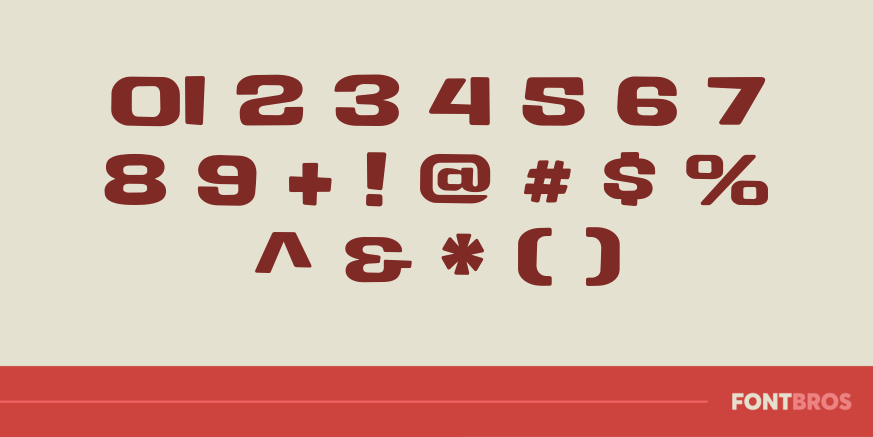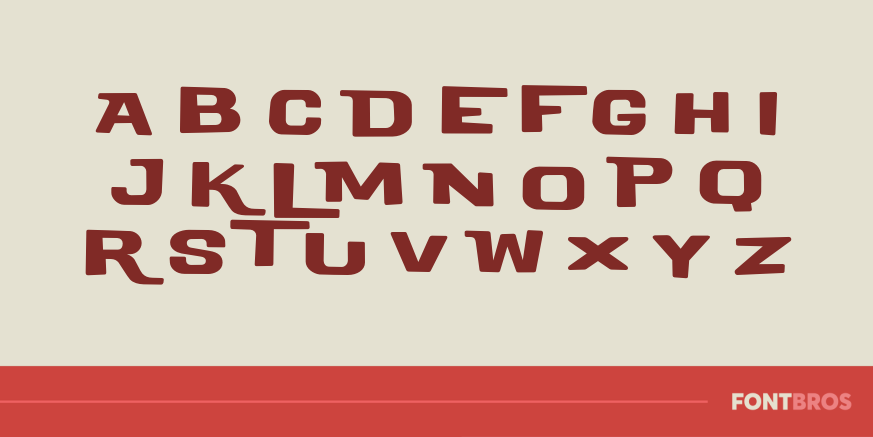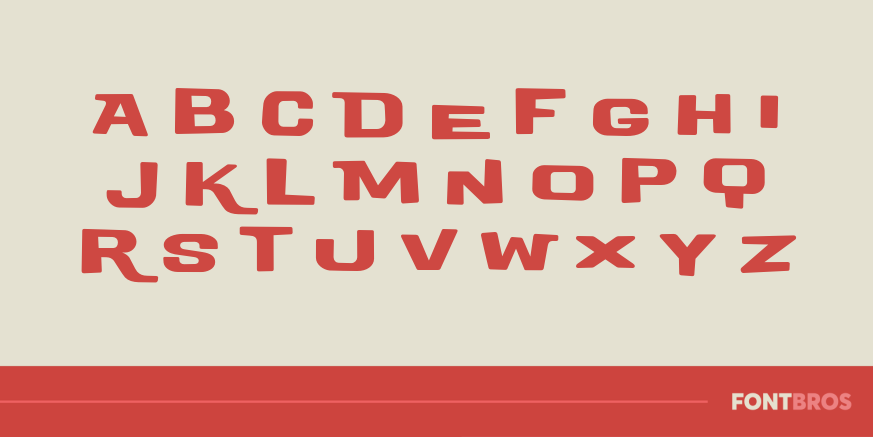
Motel King
Font Family by Font Diner
Go bananas with this super hip mod-style interlocking sans from the 1960s and be sure to bring plenty of quarters for the Magic Fingers!